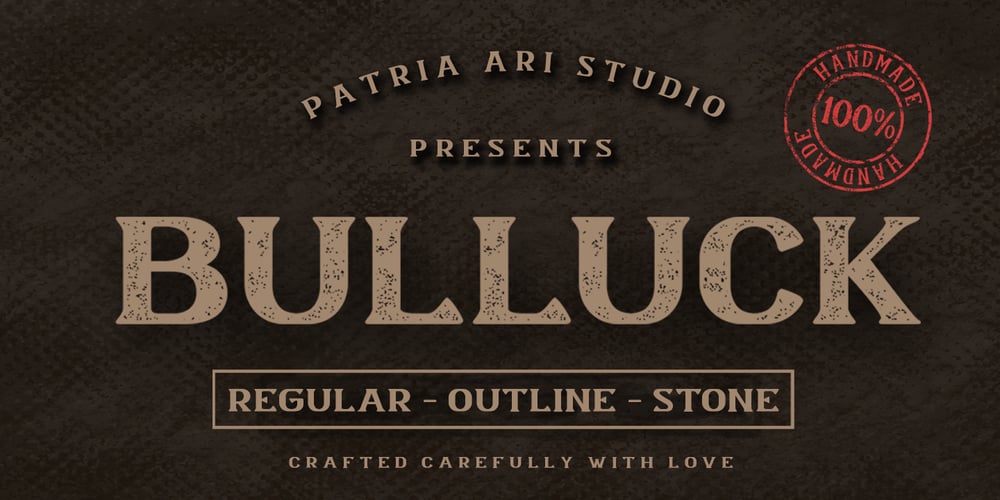
Bulluck
Bulluck font
Bulluck Font Family was designed by Patria Ari Wijonarko and published by Patria Ari. Bulluck contains 3 styles and family package options. Bulluck is a serif display typeface with strong characters to support your brand/project. Perfect for projects with subjects related to automobiles or outdoor activities. Bulluck can also be used for logos and branding, headlines, posters, signage, advertisements, printed quotes, product packaging, product designs, labels, photography, watermark, special events and more.